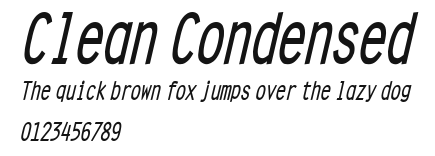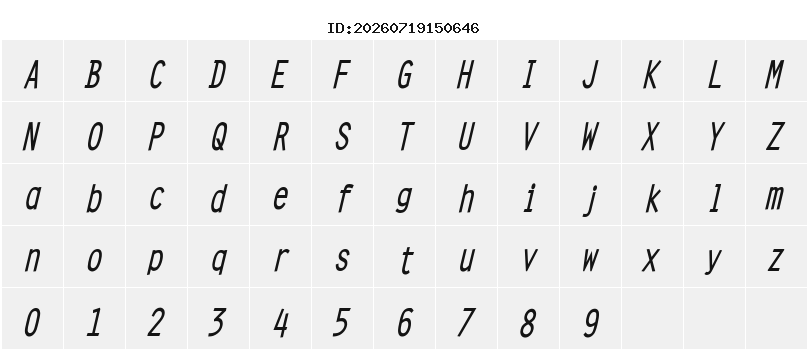
• Font Name: Clean Condensed
• Font ID: FontMonger:Clean Condensed Bold Italic
• Full Font Name: Clean Condensed Bold Italic
• Version: 1.0 Wed Jul 28 02:40:38 1993
• PostScript Name: CleanCondensedBoldItalic
• Character Count: 271
About Clean Condensed.ttf
Clean Condensed.ttf is a modern, elegant sans-serif font designed for ultimate readability and visual harmony. Perfect for branding, headlines, web design, and print materials.